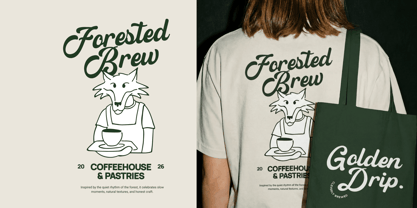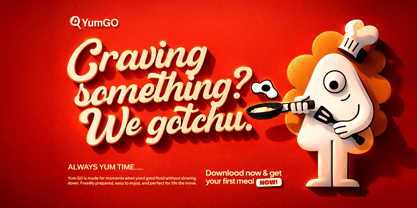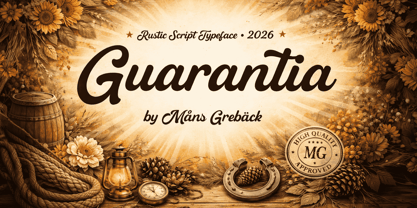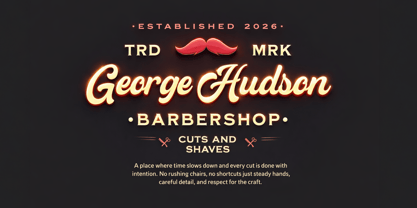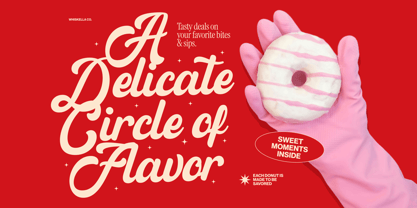
Guarantia
Guarantia is a rustic script typeface with a warm, grounded feel, inspired by traditional lettering and hand-painted signs. It carries a sense of heritage without feeling stiff, combining softness with confident strokes. The letters flow with an easy rhythm, slightly irregular in a way that feels natural and human. Rounded forms meet firm terminals, giving the script a steady presence while keeping a friendly tone. Guarantia feels at home in environments where authenticity matters, where textures, materials, and craftsmanship are part of the story. The font is built with advanced functionality and guaranteed top-notch quality, containing stylistic and contextual alternates, ligatures and more automatic and manual features; all to give you full control and customizability. It has extensive lingual support, covering all Latin-based languages, from North Europa to South Africa, from America to South-East Asia. It contains all characters and symbols you'll ever need, including all punctuation and numbers. Guarantia was drawn with a focus on balance rather than perfection. Subtle variations in weight and curve give the script its character, making it feel written rather than constructed. The goal was to create a typeface that feels reliable and familiar, like something that has been around for a long time and earned its place.